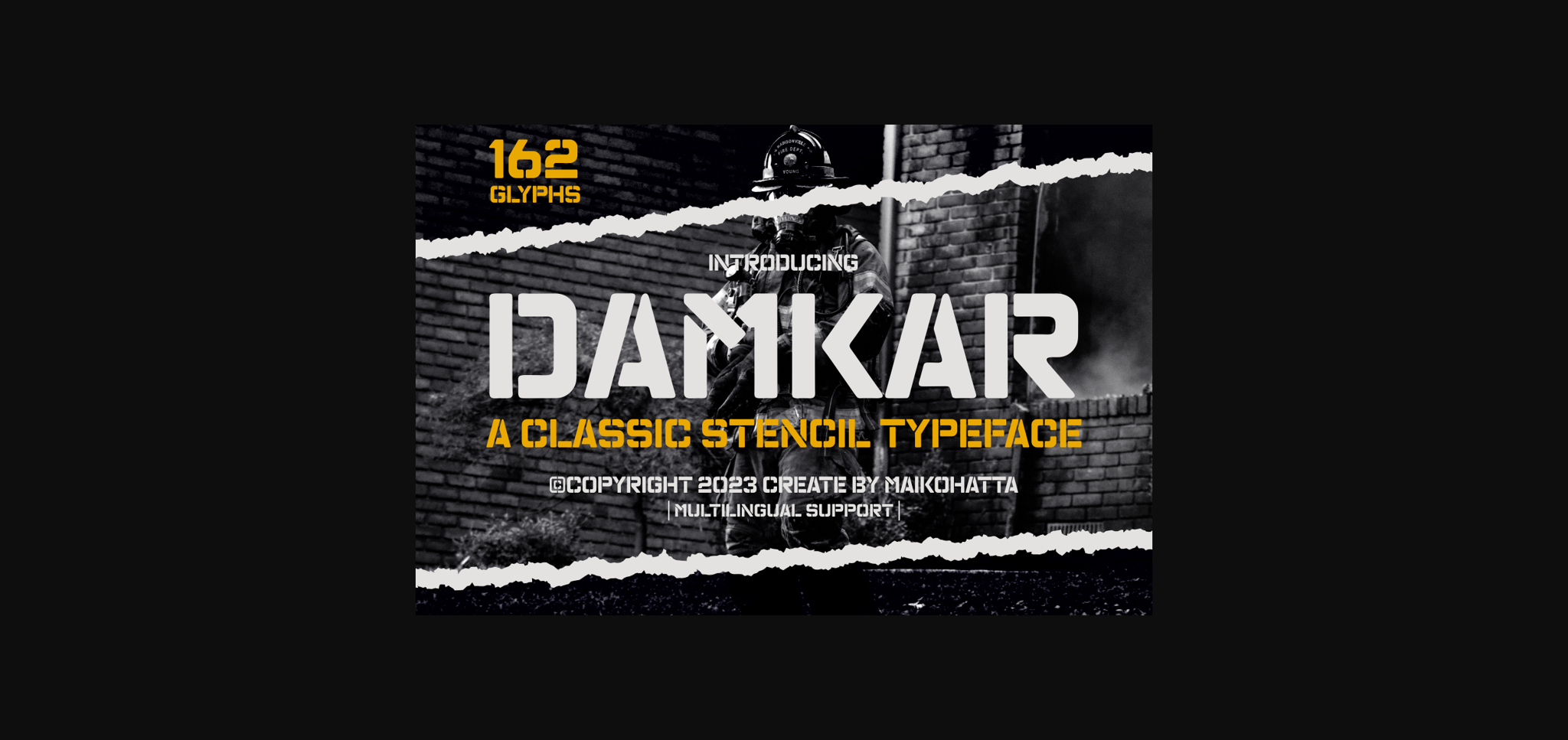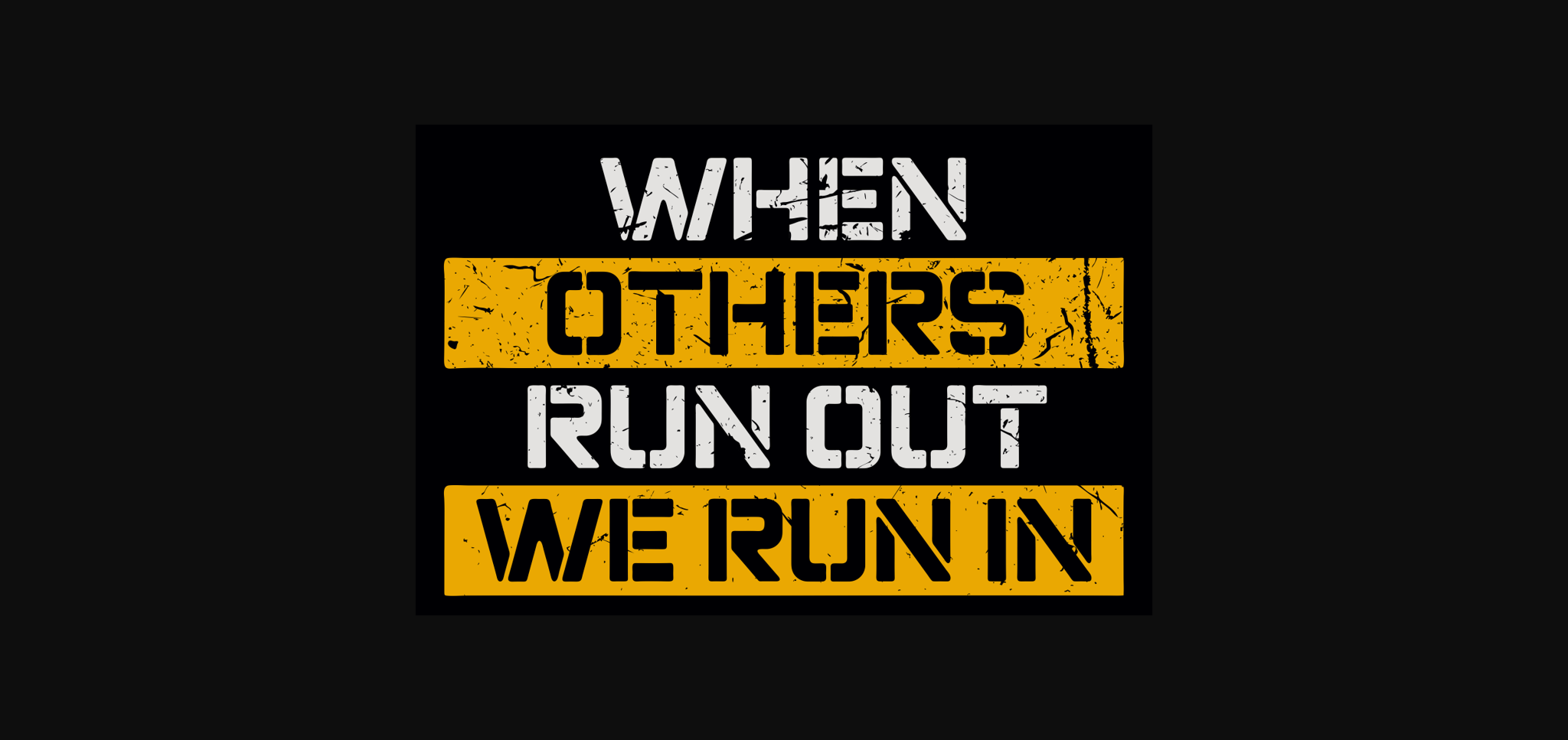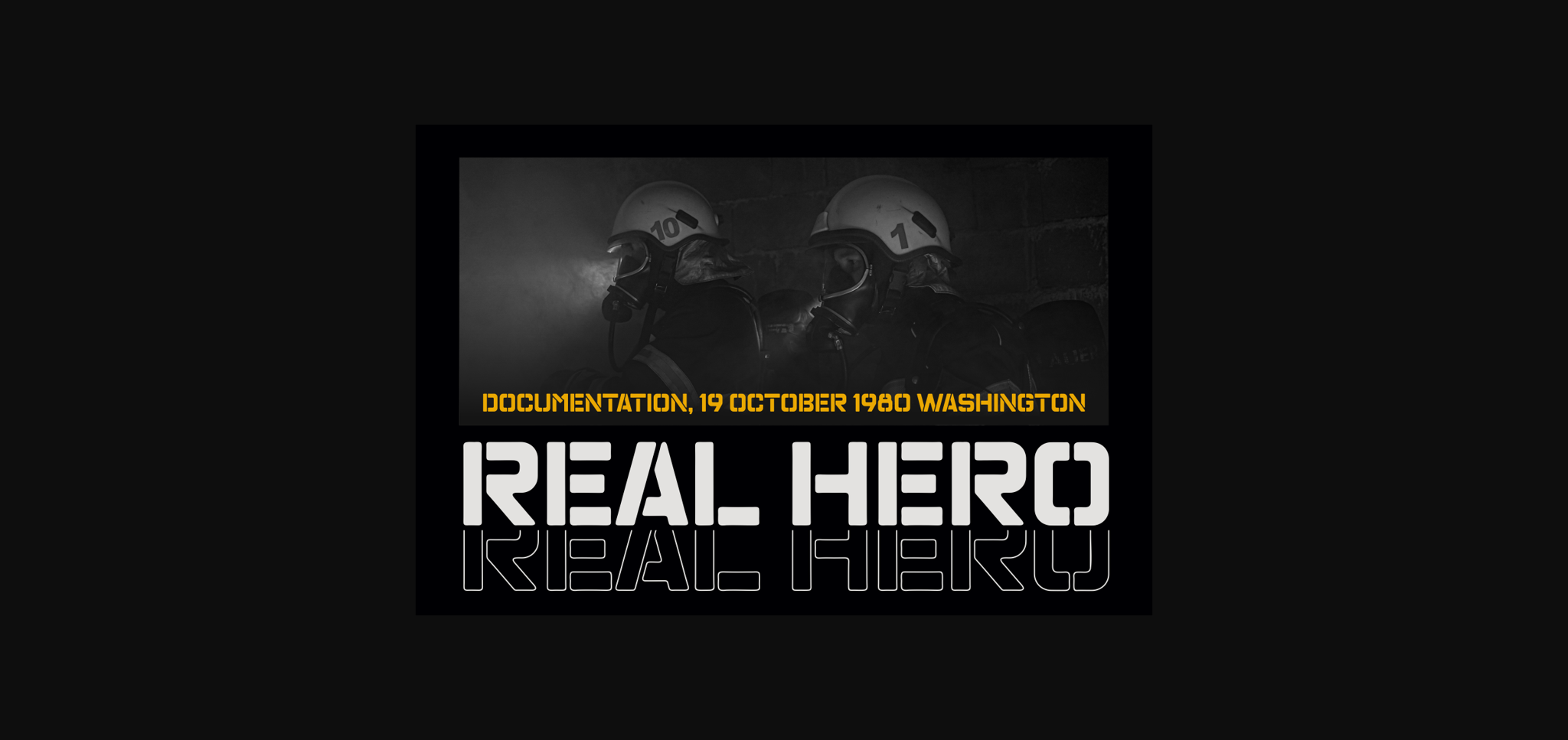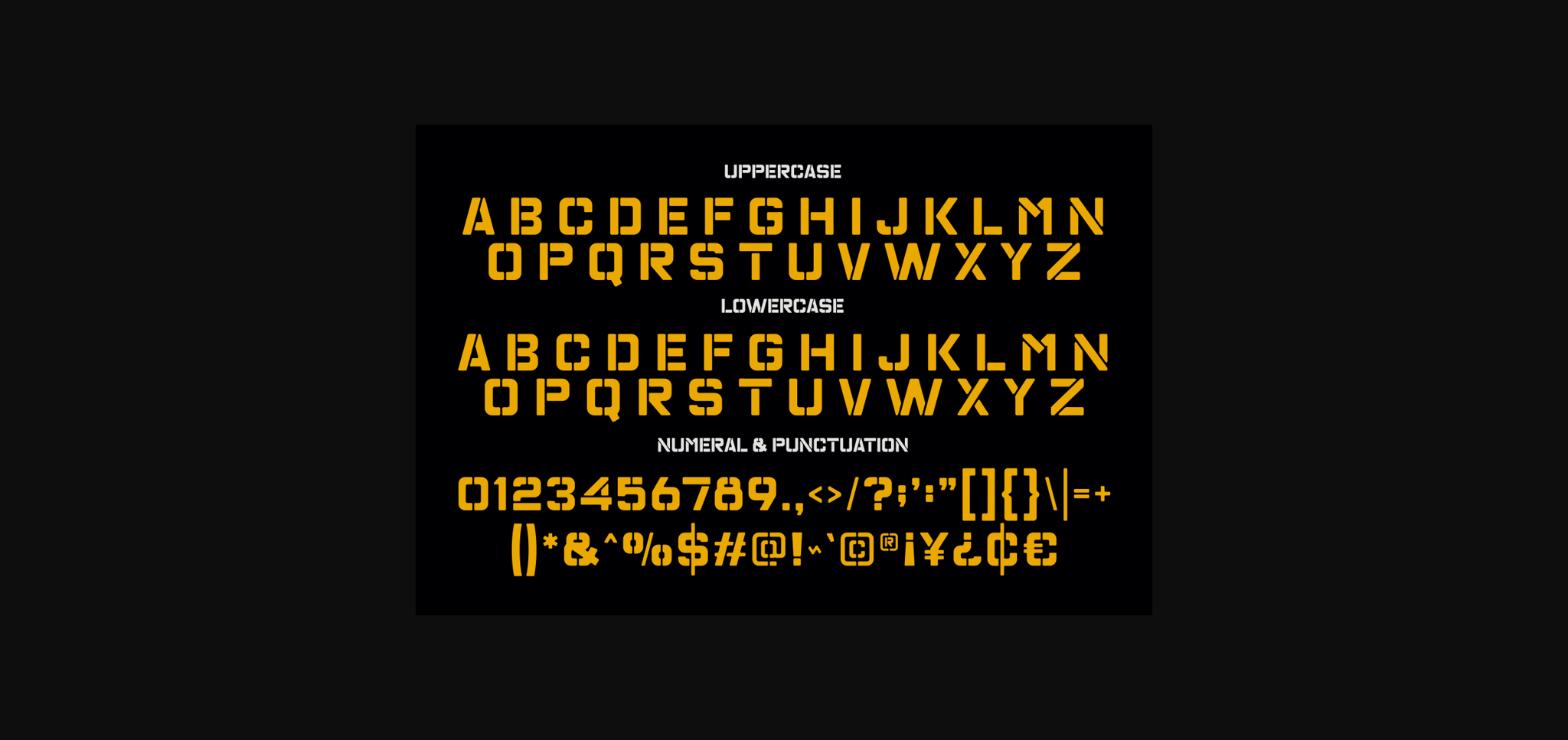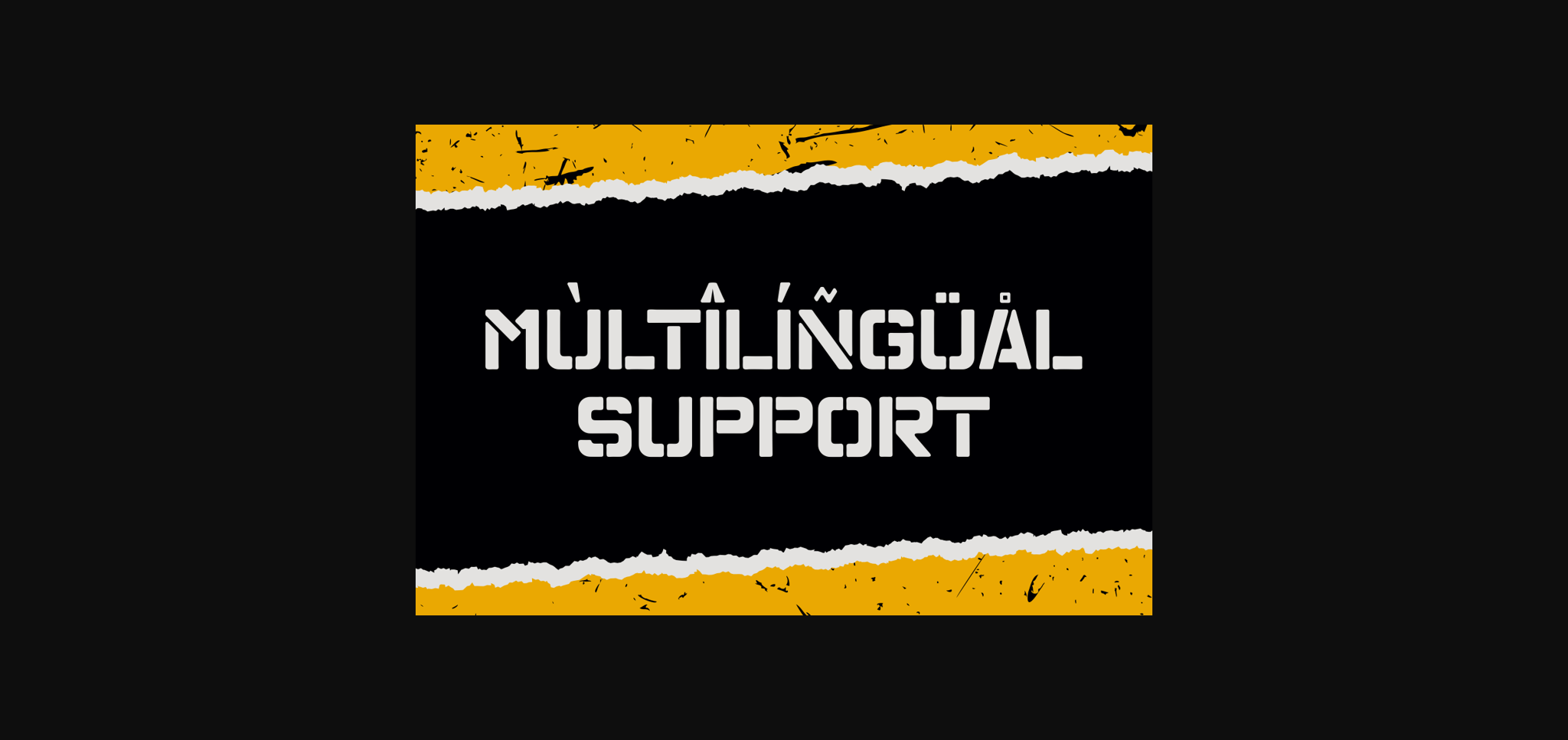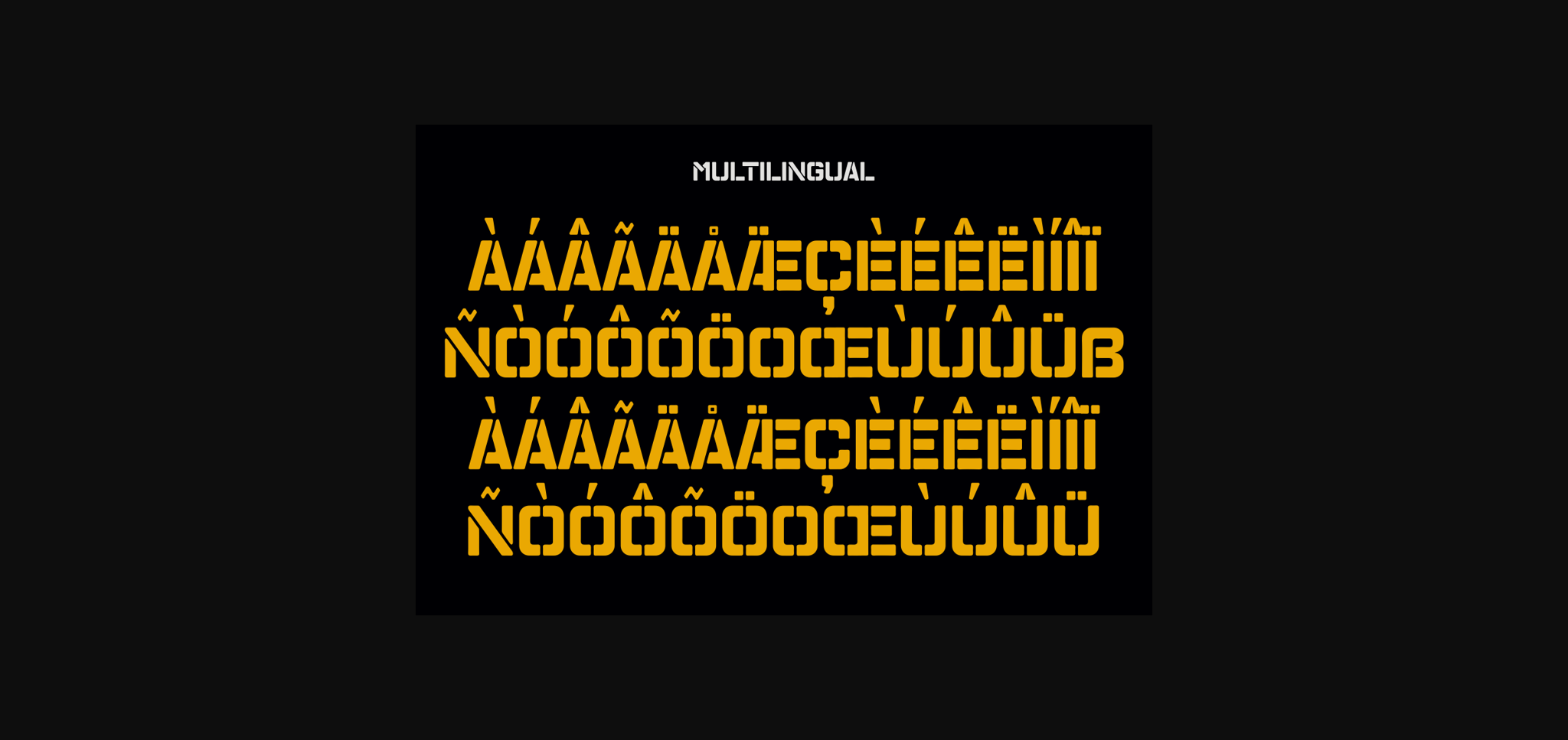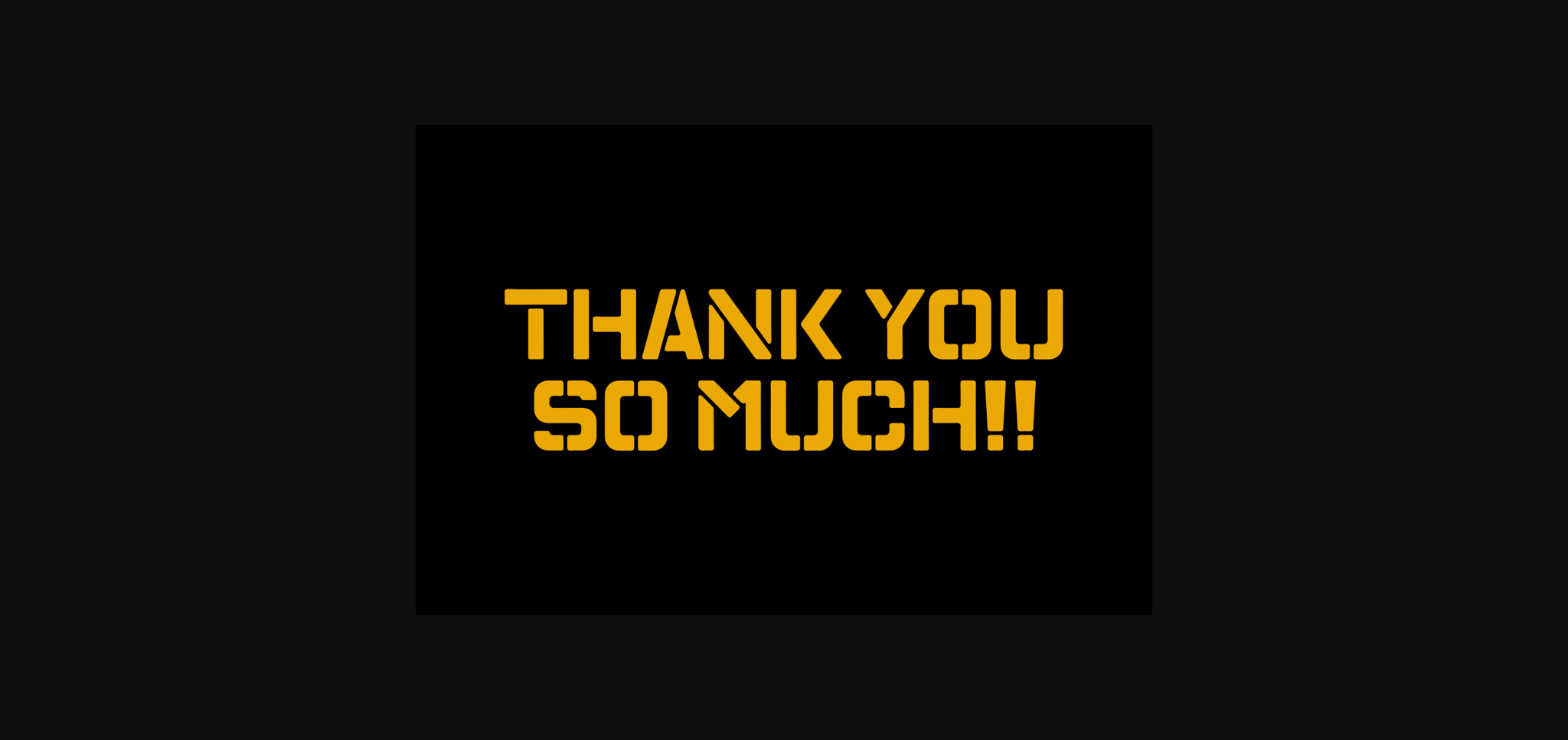
Damkar Font
About Damkar Font
This font is characterized by its unique typography style, which features distinctive attributes, namely holes or “cutouts” present in each letter and symbol. The primary hallmark of stencil font is the presence of gaps or apertures around the edges of the characters. This font serves various purposes, particularly in designs that require a special appearance with a robust, assertive, and characteristic touch. It can be used to create messages that are easily recognizable and convey a strong impression in various design contexts.